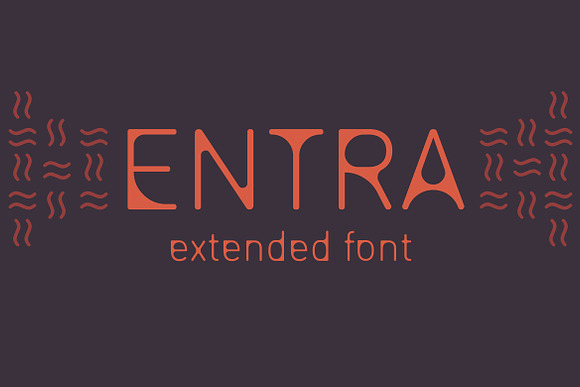
ENTRA Extended Font
ENTRA Extended Font is perfect for modern corporate identities, architectural signage, transportation systems, wayfinding applications, systematic branding, urban planning materials, progressive magazines, contemporary advertising campaigns, digital interfaces, professional presentations, extended signage systems, and comprehensive brand communications.
What makes ENTRA Extended Font exciting is its systematic expansion that maximizes visual impact and spatial efficiency through extended letterforms that command attention while maintaining perfect clarity and professional authority. This commanding typeface embodies the principles of modern design efficiency and architectural thinking, combining extended proportions with systematic precision that resonates with audiences seeking bold visual presence and organized communication solutions. The font's extended character and engineered spacing create maximum brand visibility while maintaining the readability essential for complex wayfinding and large-scale commercial applications. Its expansive personality makes it perfect for organizations that want to communicate authority, efficiency, and the transformative power of systematic design thinking and extended visual presence.
The ENTRA Extended Font family includes light, regular, medium, and bold weights, featuring extended alternates, systematic ligatures, and architectural design elements. The character set incorporates navigation symbols, systematic numerals, and professional punctuation marks that enhance the font's extended character and provide designers with comprehensive wayfinding typography solutions for maximum brand presence and systematic communications.
Whether you're developing extended brand identities, creating systematic marketing materials, or designing wayfinding communications, ENTRA Extended Font Free Download delivers the expanded authority your systematic projects require. This premium extended font excels in applications where maximum visibility and systematic organization are crucial for brand recognition and navigation effectiveness in complex urban and commercial environments. The font's extended qualities work magnificently across large-scale signage, transportation graphics, and digital wayfinding systems, making it an indispensable asset for designers serving architectural and urban planning industries. Municipal authorities and systematic organizations choose this font for its ability to communicate extended authority while maintaining perfect legibility and professional credibility across diverse public applications. The comprehensive character set supports multiple languages and includes specialized navigation symbols, expanding its versatility for international wayfinding applications and multilingual systematic communications. Professional designers appreciate its perfect balance of extended visual impact and functional clarity, ensuring projects remain both systematically effective and practically readable for diverse public audiences. When you implement this exceptional extended font in your systematic communications, you're selecting a typography solution that celebrates architectural thinking and extended visual presence, ensuring your organization communicates maximum authority and systematic efficiency while maintaining the extended credibility essential for success in competitive public service markets and systematic industries that require maximum visibility, clear navigation, and extended brand presence in complex urban environments and comprehensive communication systems that serve diverse public audiences.